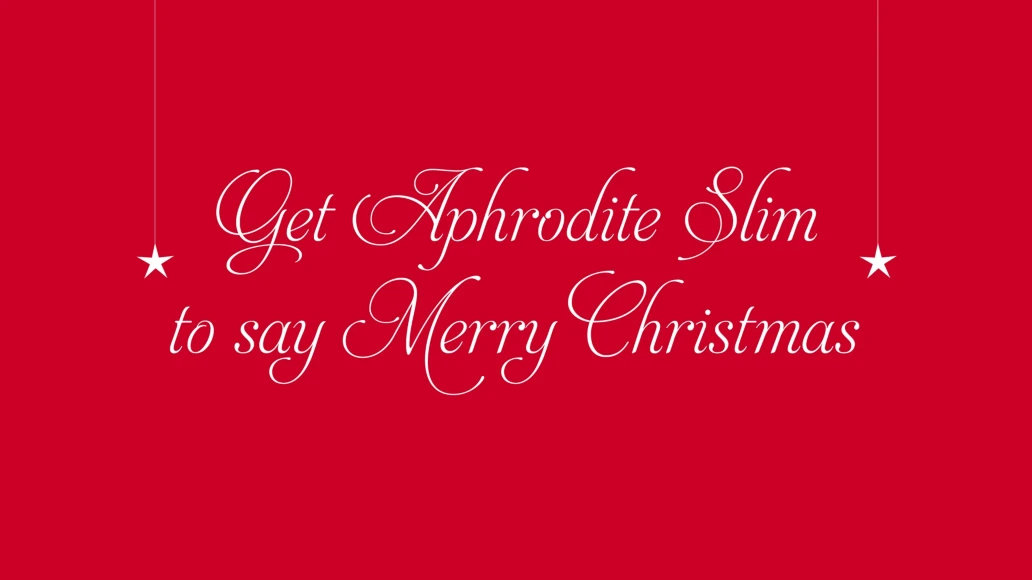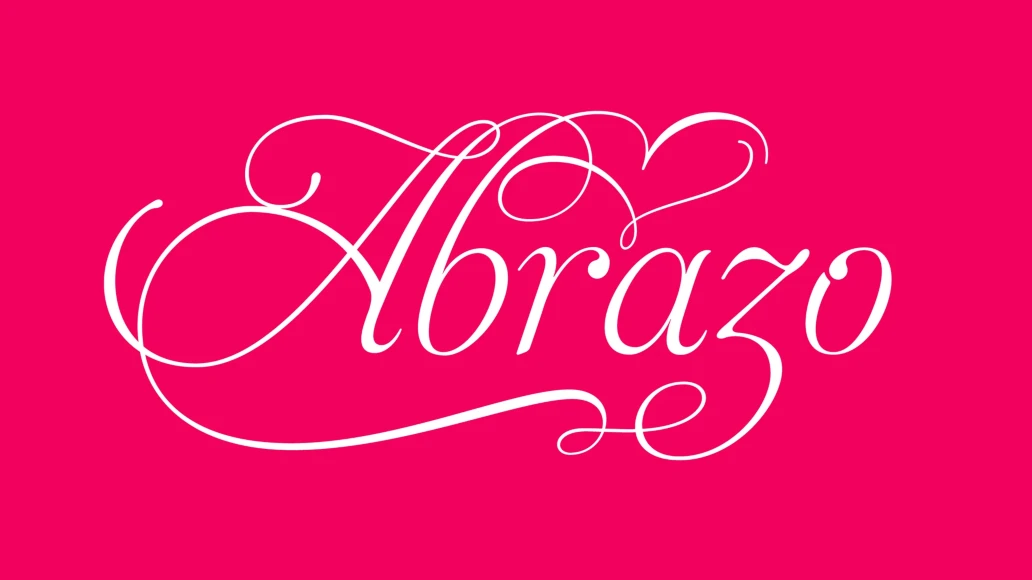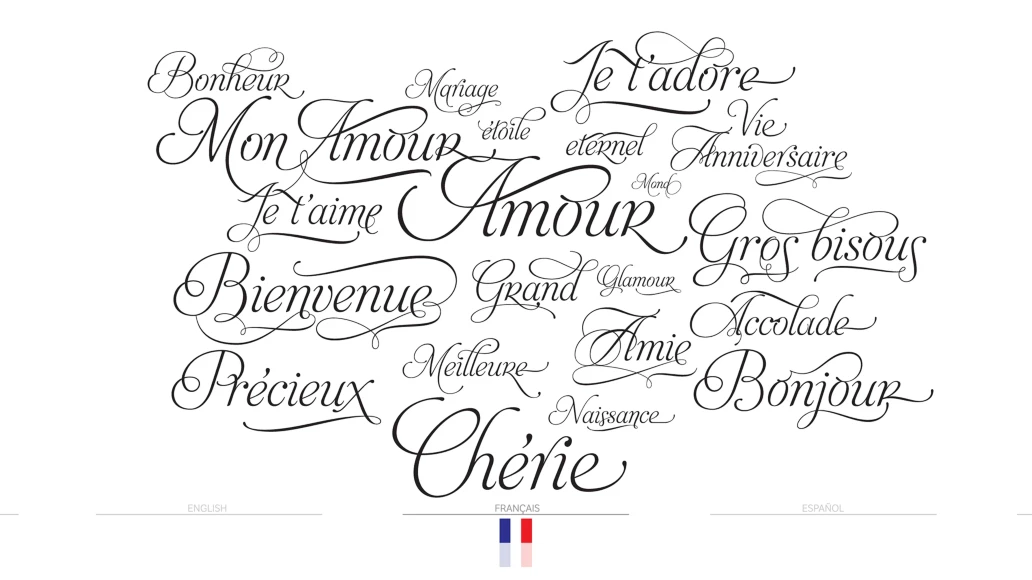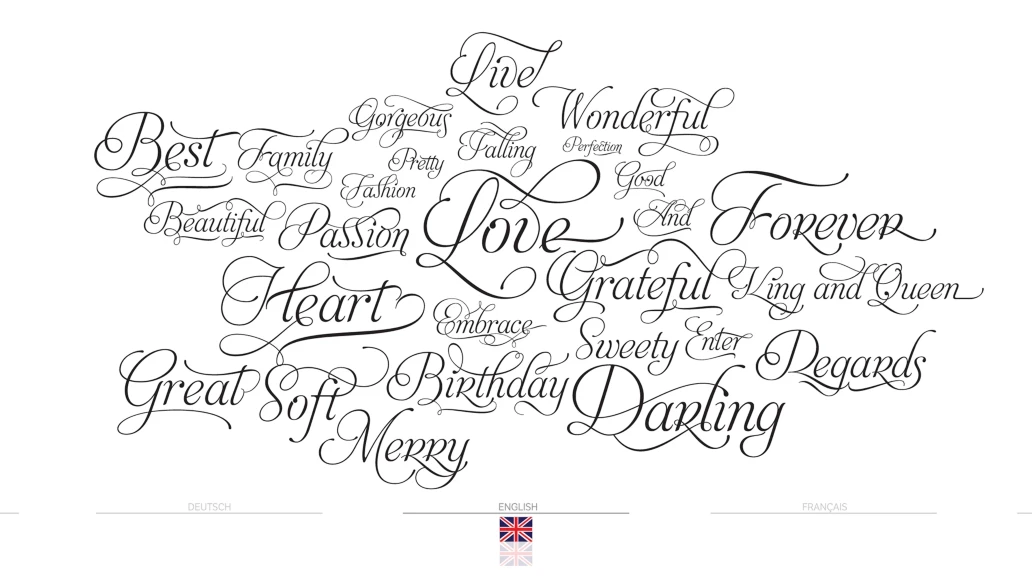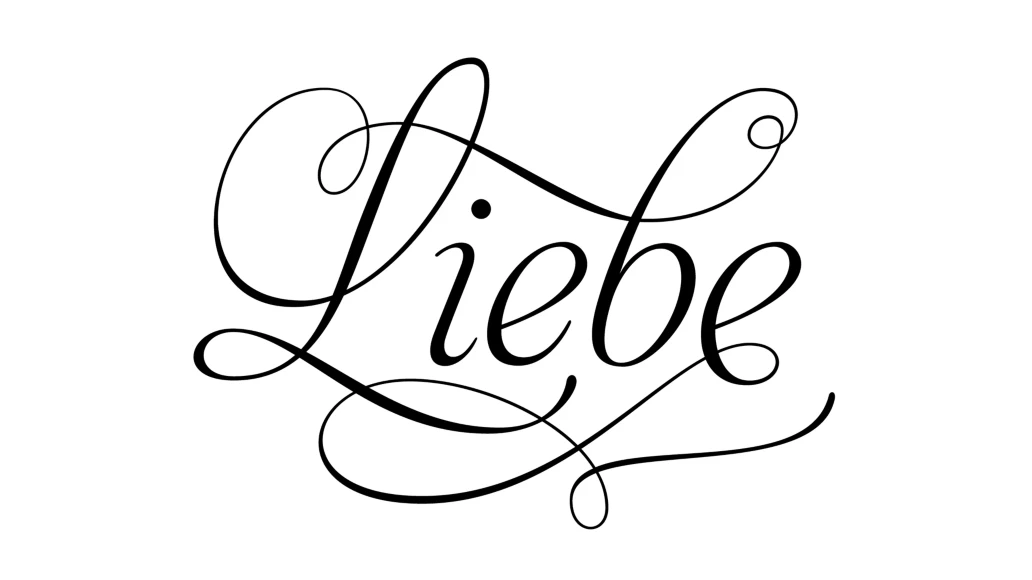
Aphrodite Slim
From Typesenses
Aphrodite Slim Pro is not just a lighter version of its sister Aphrodite Pro. Aphrodite Slim Pro has duplicated the quantity of characters of its partner, and that means more than 500 new glyphs, reaching a total of more than 1000. More delicate and meticulous, Aphrodite Slim Pro is once more a new typography with deep calligraphic ideals: We immersed ourselves into the world of each calligraphy ductus and each calligraphy masters by studying from decoration to lettering books. This was the key for the logic of Aphrodite Slim’s behavior. The new concept of Aphrodite Slim Pro was to join diverse styles of calligraphy in one in order to achieve an autonomous expressiveness, in fact, this is what calligraphy aims to, and we agreed to bring those ideals to the world of typography: It is justifiable to be inspired in hundred-year-old calligraphies, but it is even better if the results you obtain have a plus. A personal plus. During the creation process we were wondering whether it was possible to mix certain strokes of such rigid styles as uncial, (Li·n’s favourite style), with strokes of the copperplate, (Sav’s favourite style), and also to take and mix cualities of cancelleresca cursiva, formata and moderna; finally giving our creation a roman-transition italic look. So Aphrodite Slim takes ideals and aspects from those formal styles, following its own logic though, and emphasizing the fact of being a decorative typography. Calligraphy masters of our past are who we are in debt with. They are the cause we have lovely letters now. They have been spontaneous at the moment of creation, what differs from the type-designers of nowadays, whose spontaneity is more limited. Digital faces that we are used to see these days are a result of long hours of optical adjustments, grids, macros and inspirations of other existing typography, but without personal contributions. Aphrodite Slim wants to refute this. Its mission is to rescue de spontaneity of the artesanal lettering in order to obtain unique words; those which only calligraphy masters of our past or lettering artists of our present could give us. We have worked hard to achieve this, making Aphrodite the most universal font we could: It was necessary to study the most common words, focalizing more in the ones referring to “sensitivity”, of four of the most spoken languages in the world. Aphrodite Slim has an enormous quantity of decorative characters and special ligatures for phrases and words in English, French, Spanish and German. (See English, Français, Español, Deutsch PDF in the gallery section). We promise there is no existing type that decorates/ligates glyphs and words like Aphrodite Slim does: It is the first time a font like this really considers its purpose. -The way glyphs are ligated is insane- : Aphrodite Slim rescues some ideals of persons like Jan van den Velde (Italian cancilleresca writing of XVI Century) who understands ascenders and descenders as possibilities to beautify the lines of writing with curved strokes that seem to be dancing above and below of the words. This master also creates ascenders and descenders even where they are not necessary, on letters that do not actually need them: Aphrodite Slim takes this ideal. The font counts with a wide range of glyphs that seem not to be satisfied with its more primitive form and prefer to extreme their parts to be decorative. It also existed masters of calligraphy like José de Casanova of XVII Century, who, with a magnificant skill and a really personal mark, had the particularity of ligating words that were actually separated with spaces. This is another innovative feature in Aphrodite Slim. An investigation of the most common beginnings and endings words of the English language was done. Having that feature activated (discretionary ligatures), common words will start to ligate or to be decorated even when they are separated by spaces. Impossible to forget Francesco Periccioli of XVII Century and our experience us designers to face with works of him: His letters, that today are included in the group of cancellerescas modernas, have been a direct inspiration to the oldstyle figures and historical forms variables in Aphrodite Slim. Giovanni Antonio Tagliente (XVI Century) and his particular way of making tails and diagonals longer than usual, qualities that our creation reflects too. Finally, our adventures in Biblioteca Nacional and Barrio San Telmo, Buenos Aires, were essential for us to make Aphrodite Slim more complete and interesting: Sav did an excellent work when studying how the decorative miscellanea and swirls of early XX century were. She also investigated what particularities made those roman titling characters look antique so she could rescue some ideals for the oldstyle figures and historical forms variables. This also leaded her to create the ornaments variable in Aphrodite Slim. We are really proud of presenting Aphrodite Slim Pro, a typography that was the result of days and nights of working hard, because we do love what we do; and we are glad we are living in a present that gives us the possibility to spread this kind of art, because that is the way we consider our job: Aphrodite Slim Pro is Art. Hope you can appreciate the enormous work this type has. Features. Aphrodite Slim Pro is the most complete variable. It includes more than 1000 glyphs. Thanks to the Open-Type programming, it counts with a easy way to change/alternate glyphs if the application in which the font is used supports this. The variables contained in Aphrodite Slim Pro are also offered separately. Aphrodite Slim Text: It is the variable for lines and paragraphs. Thus it is the least ornamental and the most accurate to achieve a satisfying legibility. It has the Standard Ligatures feature in order to improve the possible conflicts some glyphs could have by others. Aphrodite Slim Contextual: It is the one that makes emphasis in decorating. It has the particularity of ligating/decorating words of common use in English, French, Spanish and German. It also has the quality of ligating common beginnings and endings of the common words in English. Aphrodite Slim Stylistic: With similar features of Slim Contextual. It includes a set of decorative numbers for a display use. Aphrodite Slim Swash: This one has special beginnings and endings to decorate words. Aphrodite Slim Endings: It makes words look as a signature. Aphrodite Slim Historical: It adds an antique look to the written word. It also has the special historical ligature function. Aphrodite Slim Titling: This one is the most decorative. Its copperplate inspired ornaments give words a special color, in order to handle the quantity of decoration, it comes with the standard ligature feature, which has the most common ligatures plus others that make decorative swirls not to be conflictive. Aphrodite Slim Ornaments: A set of 52 ornaments. Aphrodite Slim Pro includes all this features plus the Stylistic Set 1; Stylistic Set 2 and the possibility of Slashed Zero. We recommend you to check out the gallery in order to see all these features in action.
Designed by Sabrina Lopez
Historical Ligatures
Slashed Zero
Titling
Final Forms